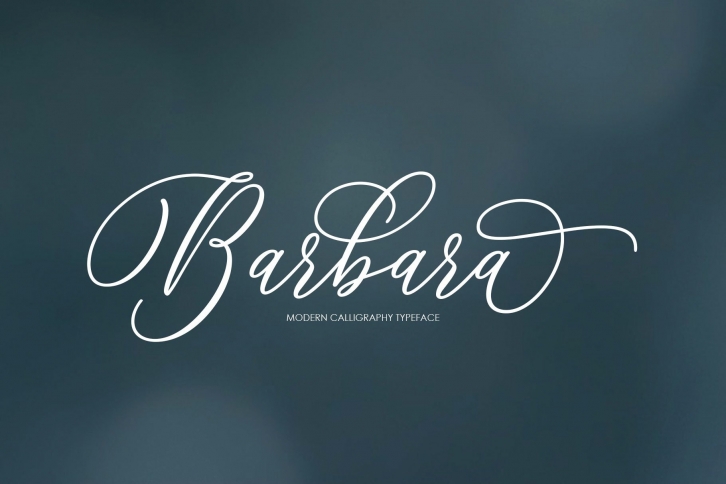
Barbara Script is a trendy and unique font with an authentic style. It was designed by Moriztype and it's a great choice for creative people who need such a font. It was released on December 5, 2021 and the file size is 8.16 MB. Barbara Script will add an organic vibe to any design idea!